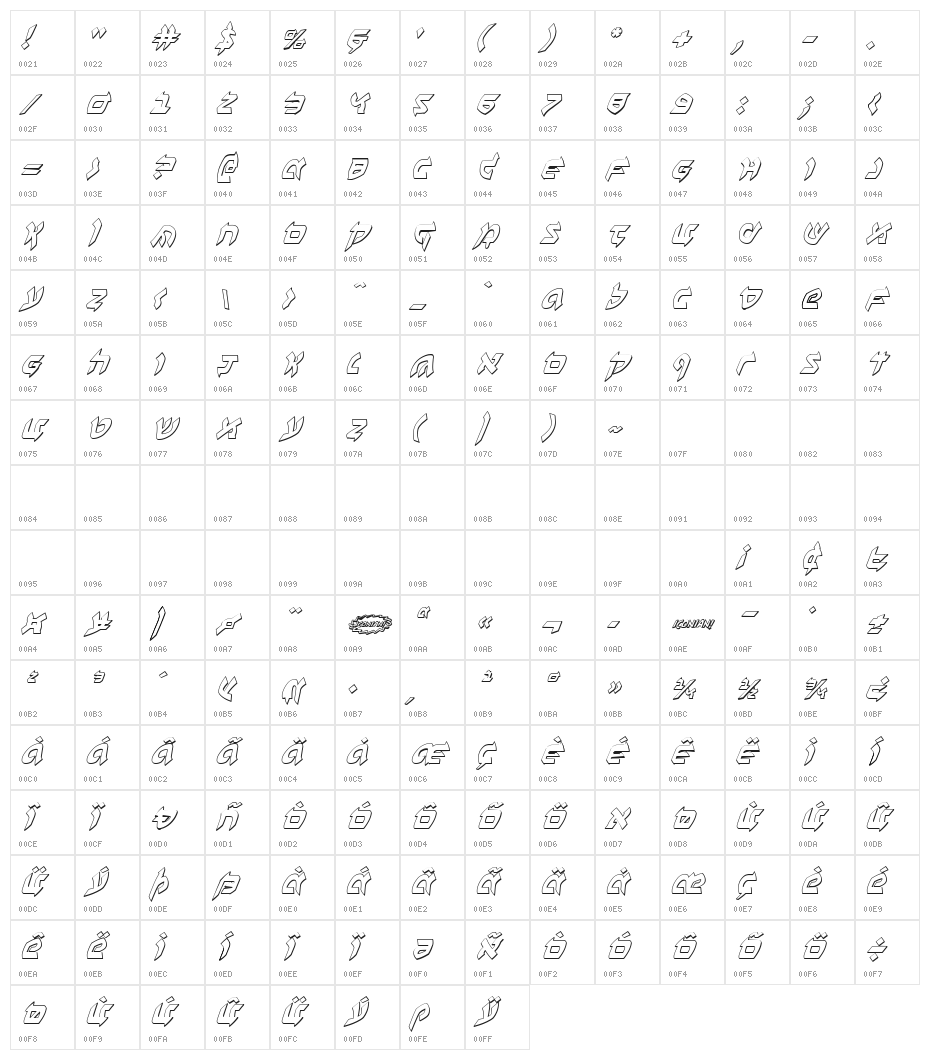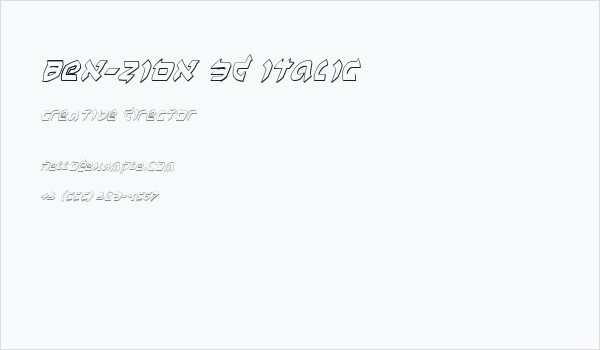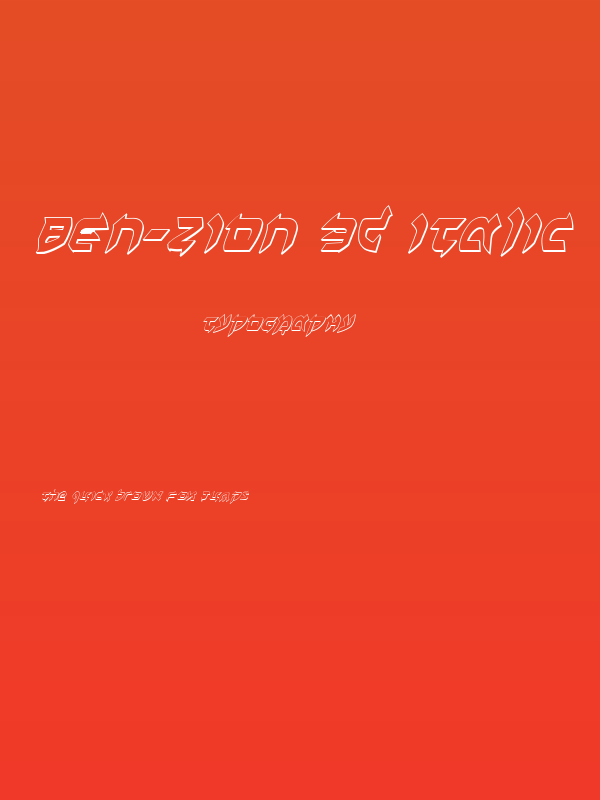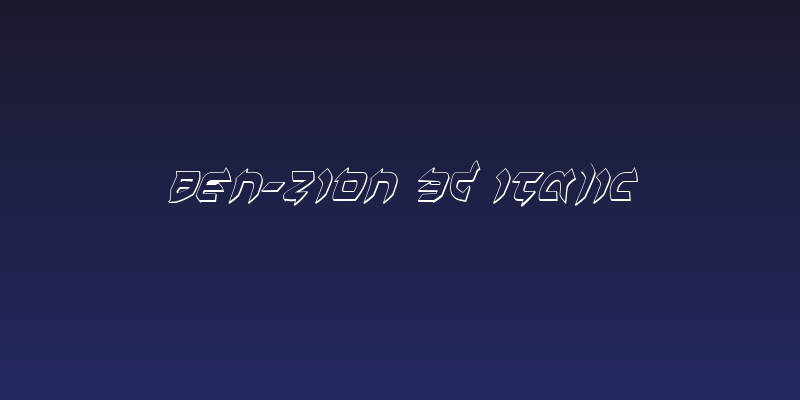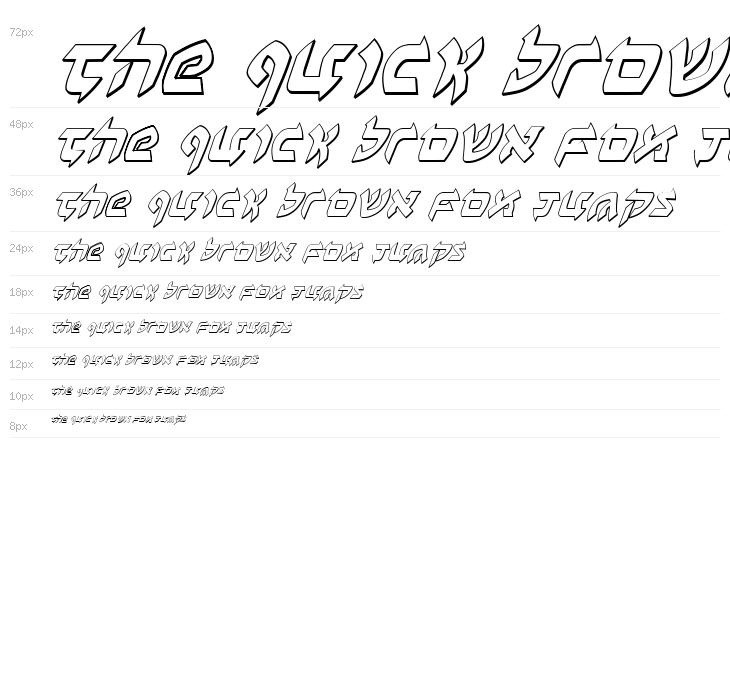
Ben-Zion 3D Italic Font
Ben-Zion 3D Italic Description
This font features a bold, angular design with a distinct 3D effect, giving it a dynamic and futuristic appearance. The characters are italicized, adding a sense of motion and speed. The sharp edges and geometric shapes create a strong visual impact, making it suitable for attention-grabbing designs. The uppercase and lowercase letters maintain a consistent style, while the numbers and special characters complement the overall aesthetic. The font's unique style is ideal for projects that require a modern and edgy look.
| Overall Style | Futuristic, Dynamic |
| Proposed Projects | Ideal for video game titles, sci-fi movie posters, tech branding, and dynamic advertisements. |